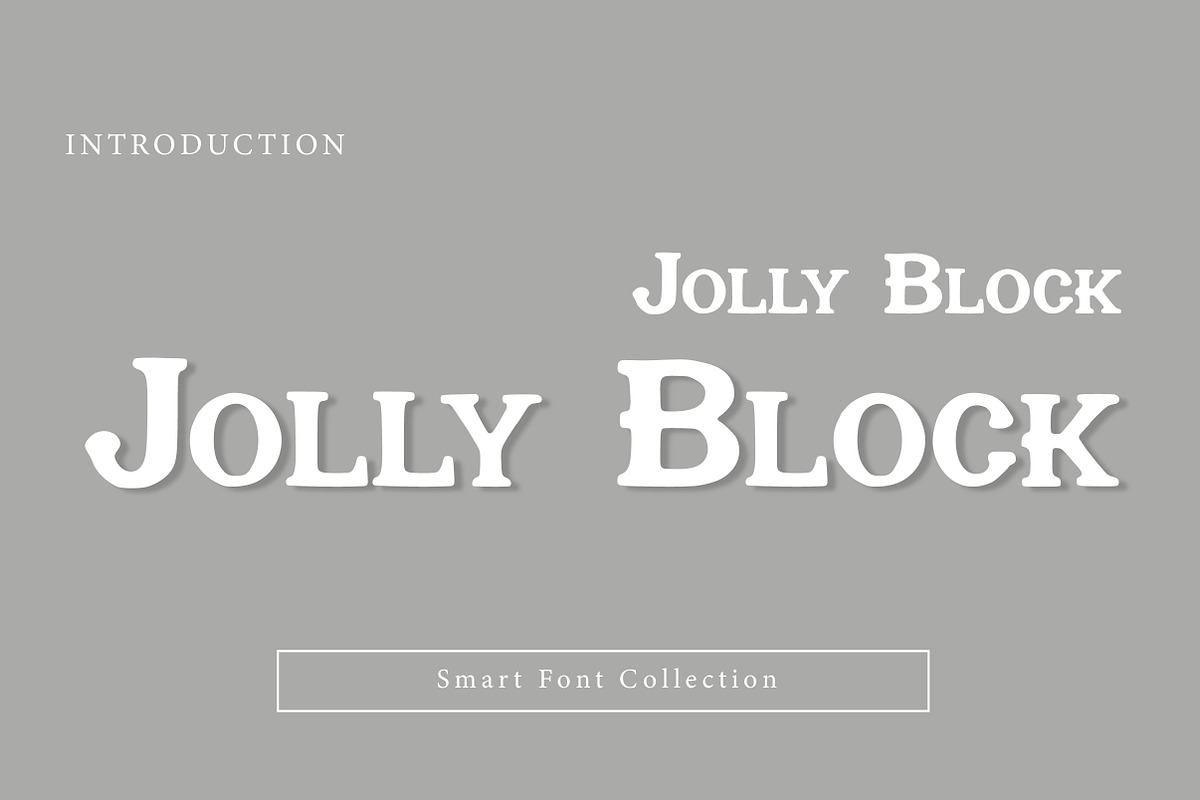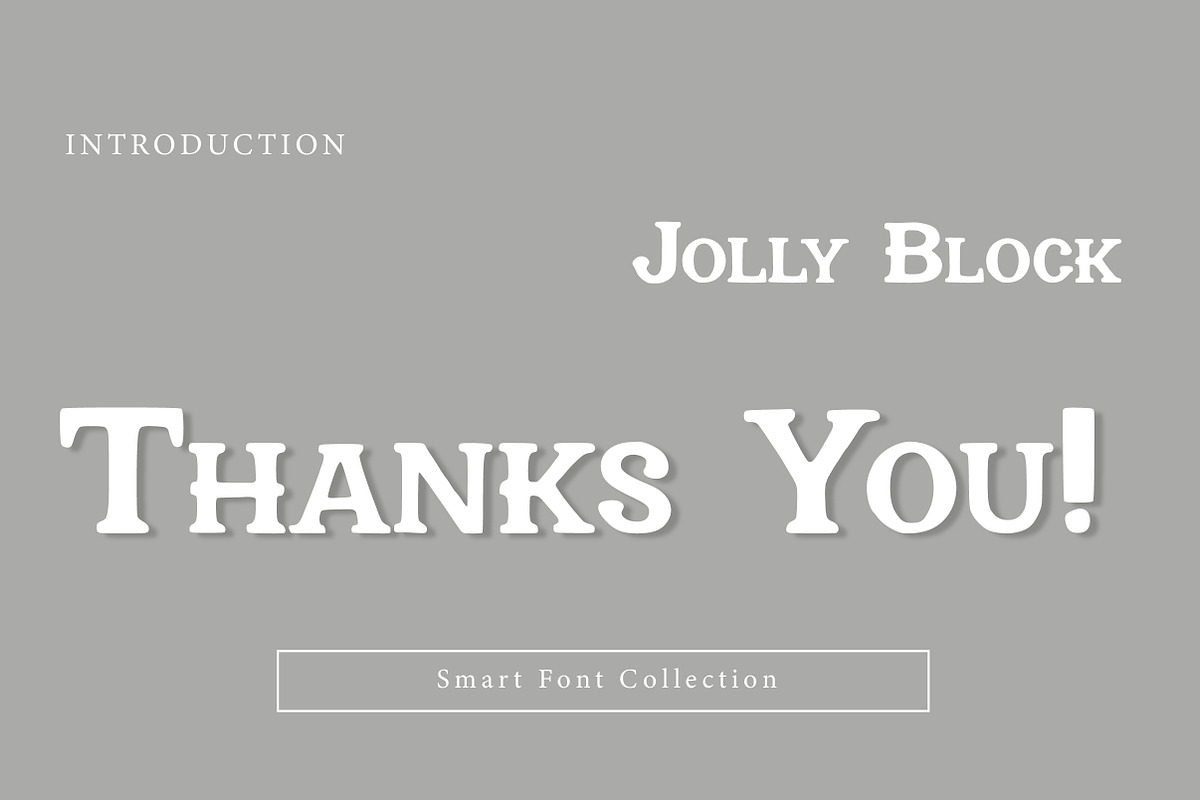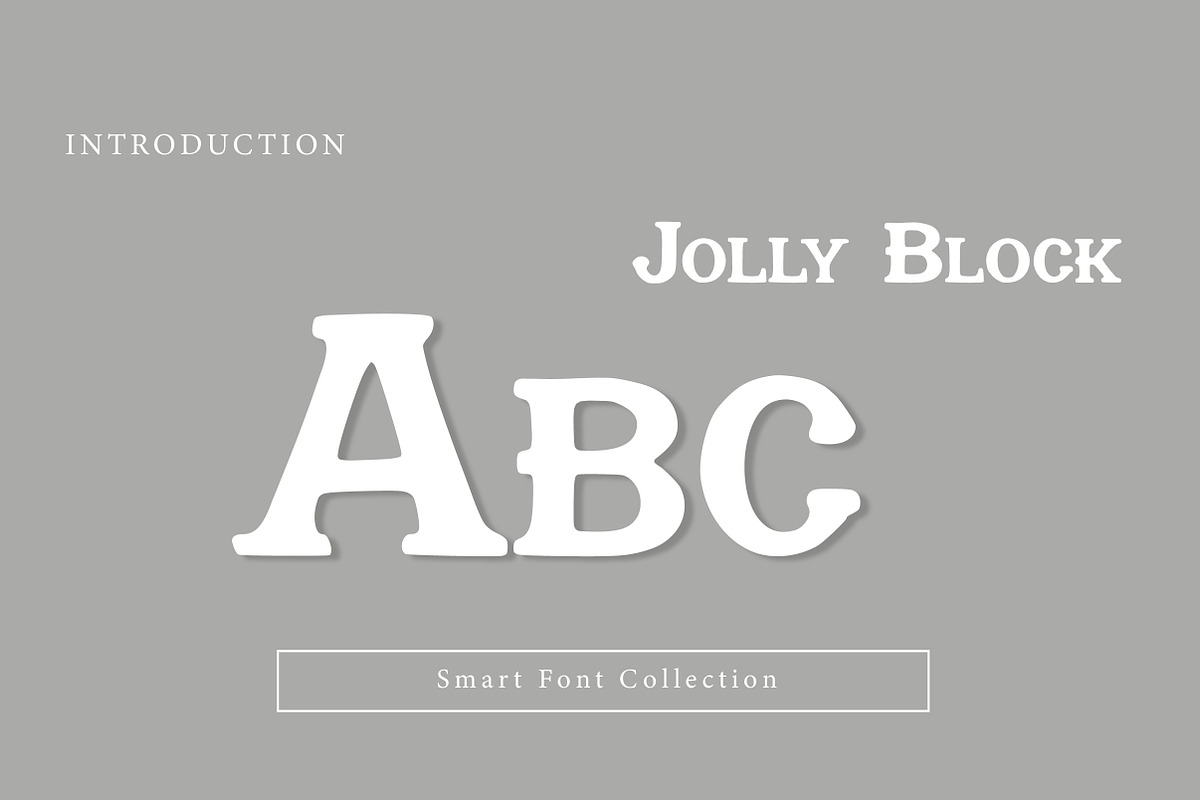
Jolly Block
Jolly Block is a bold, playful, and confident display font designed with strong block-style letterforms and a friendly personality. With its thick strokes and slightly rounded edges, this typeface delivers a fun and eye-catching look that’s perfect for creative projects that need bold typography with charm.
This font is ideal for designs that require high readability and strong impact. Whether you're working on logos, posters, kids branding, packaging, headlines, t-shirt designs, stickers, social media graphics, or fun merchandise, Jolly Block makes your text stand out instantly.
Its block-style structure gives it a powerful presence, while the playful feel keeps it friendly and approachable. It works especially well for titles and display typography where bold, cheerful lettering is needed. If you're looking for a font that feels energetic, bold, and versatile, Jolly Block is a perfect choice for both print and digital design.